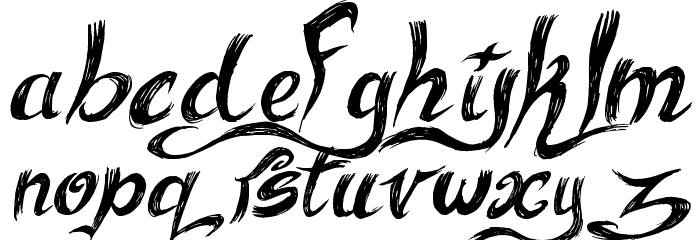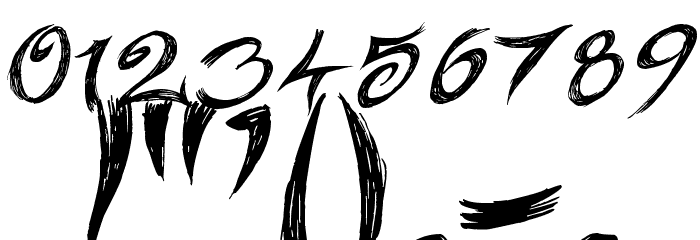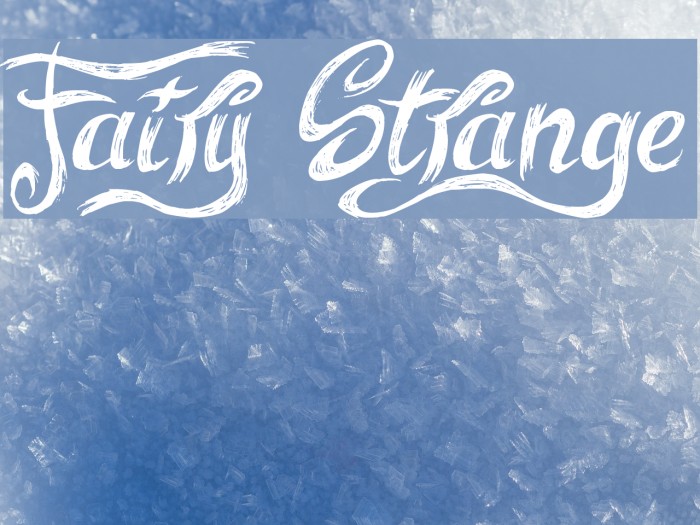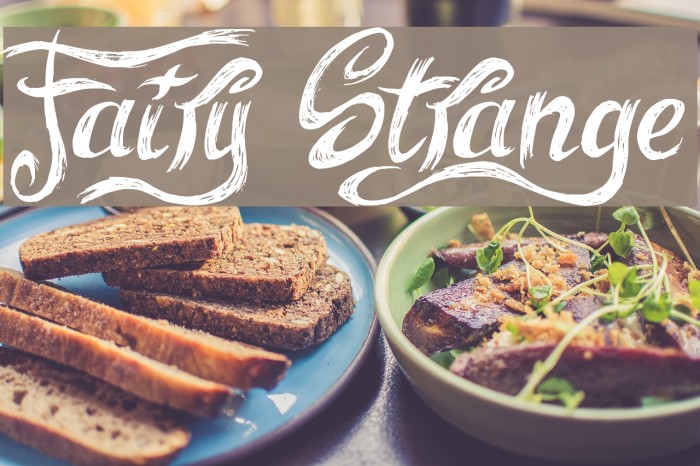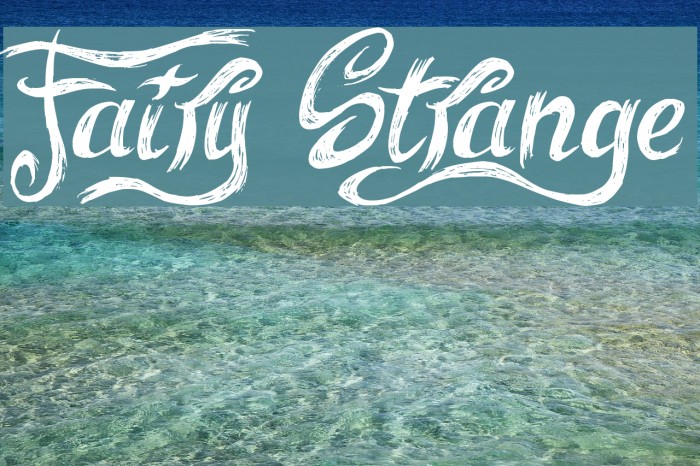
Fairy Strange Font
This font exudes a whimsical and mystical aura, characterized by its flowing, brush-like strokes that give it a hand-painted appearance. The uppercase letters are adorned with intricate swirls and curls, adding a touch of elegance and fantasy. The lowercase letters maintain a consistent style, with elongated ascenders and descenders that enhance its fairy-tale charm. Numbers and special characters follow the same artistic theme, ensuring a cohesive look across all elements. The overall design is both playful and sophisticated, making it suitable for projects that require a touch of magic and creativity.
A whimsical, brush-like font with elegant swirls and a mystical charm.
- Font: Fairy Strange
- Proposed Projects: Perfect for fantasy-themed projects, book covers, invitations, and branding that requires a magical touch.
- Use Case: Headlines, Logos, Invitations